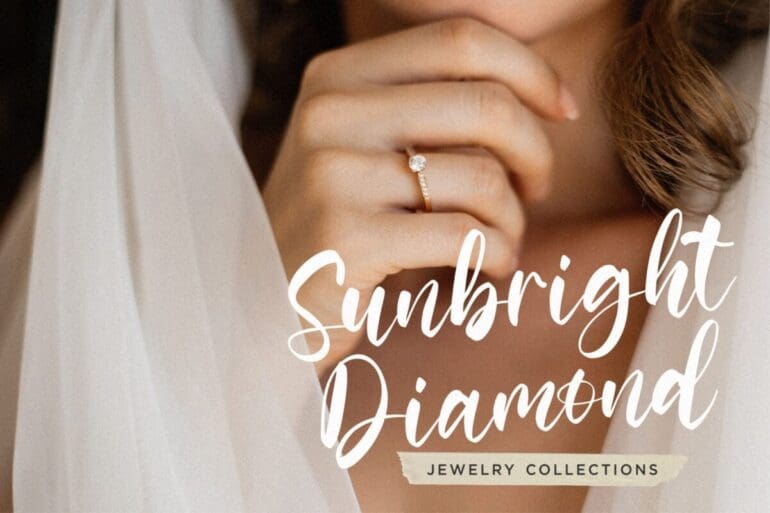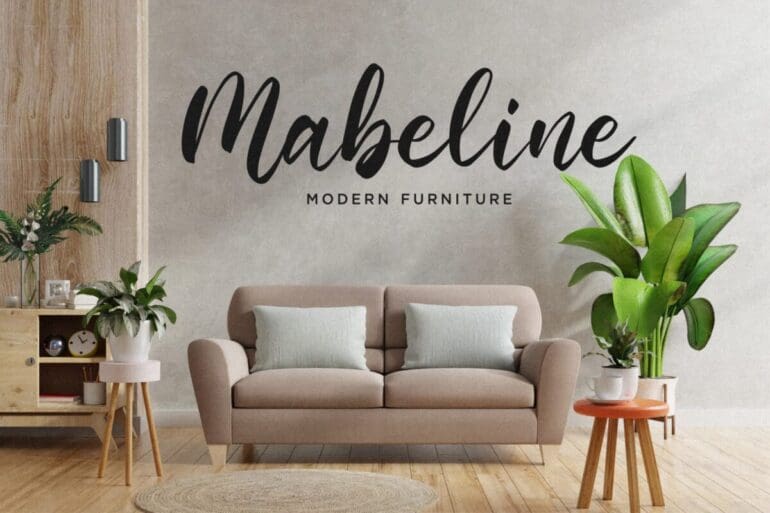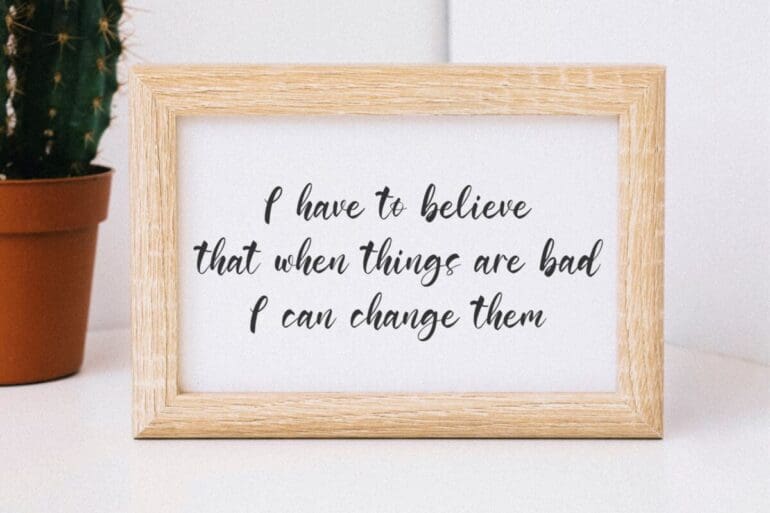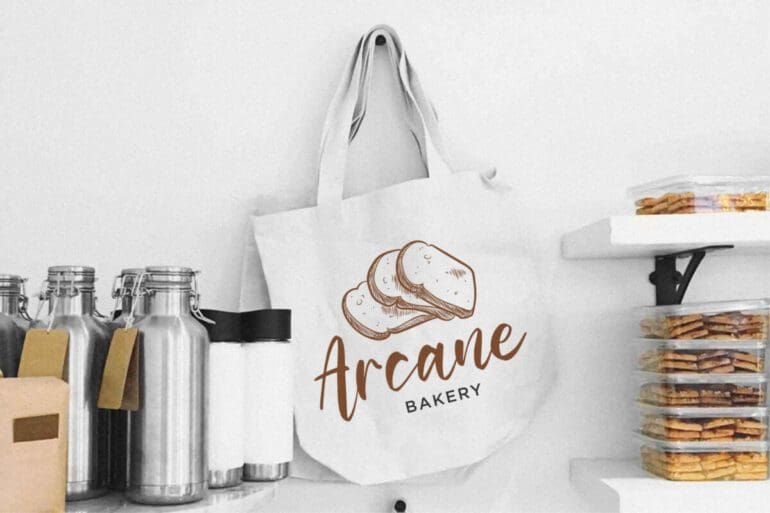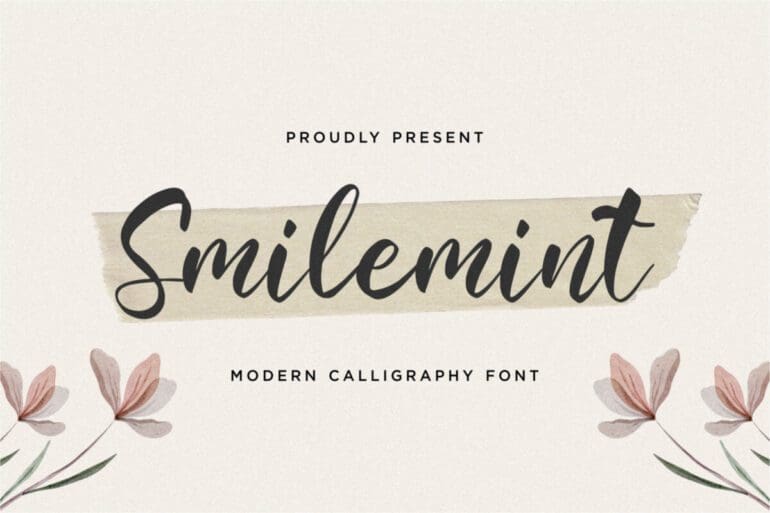
Smilemint Font
Smilemint is a lovely and delicate script font that exudes elegance and class. This font was particularly crafted for those who need a beautiful and refreshing look to their designs.